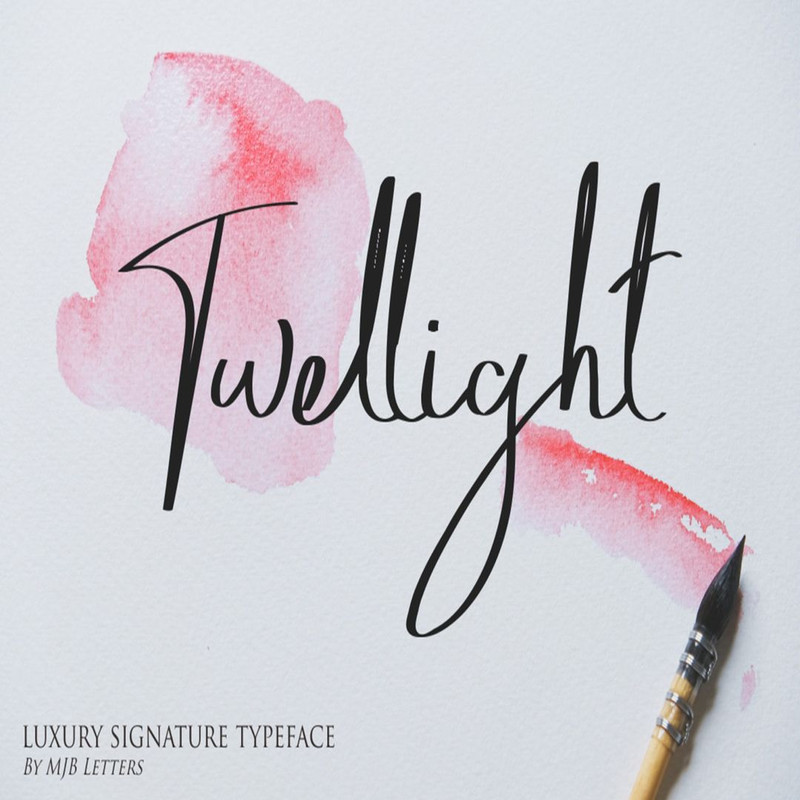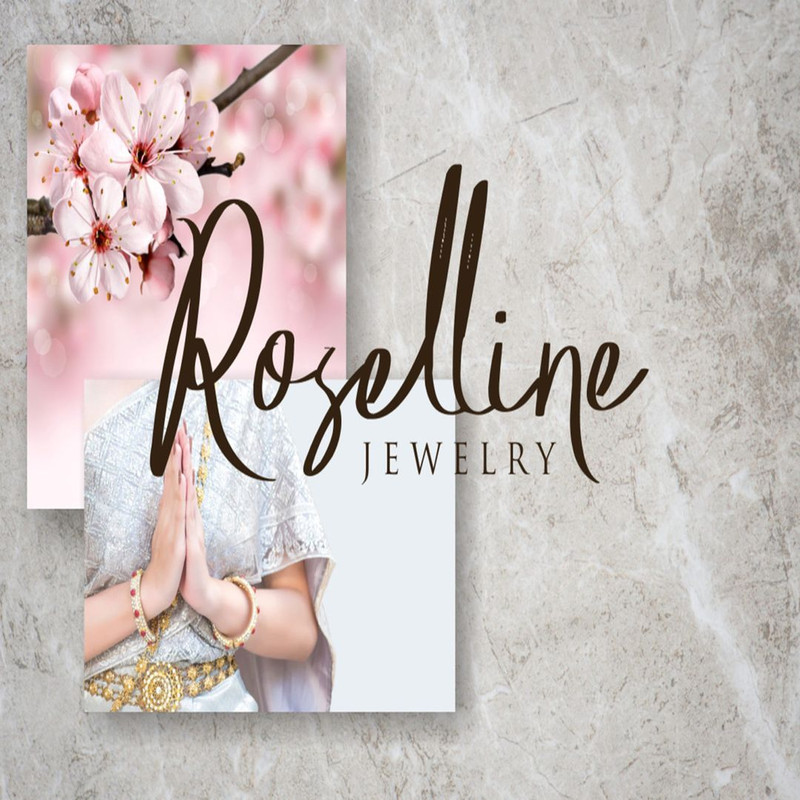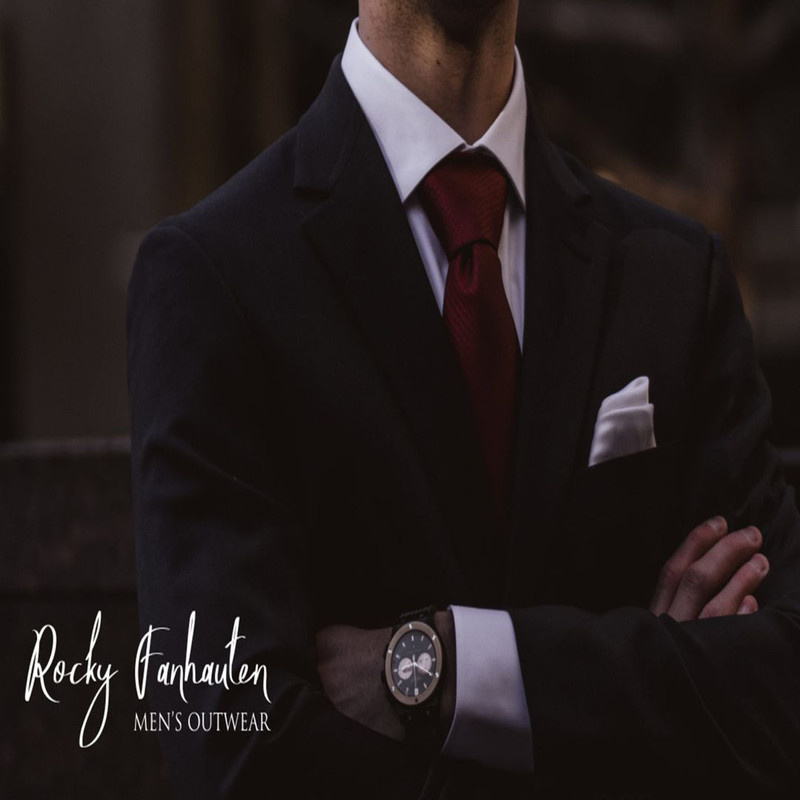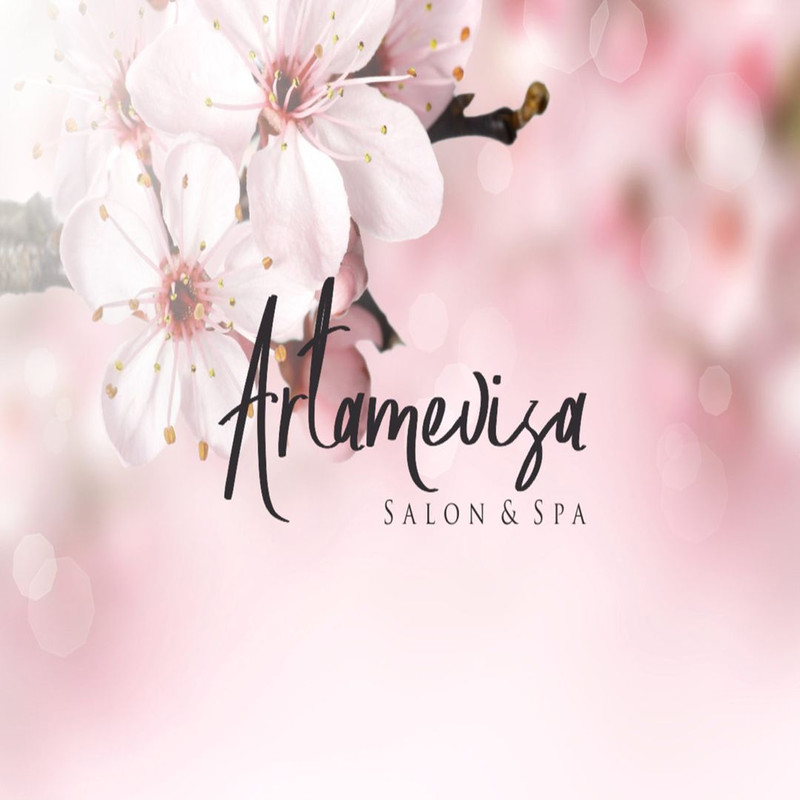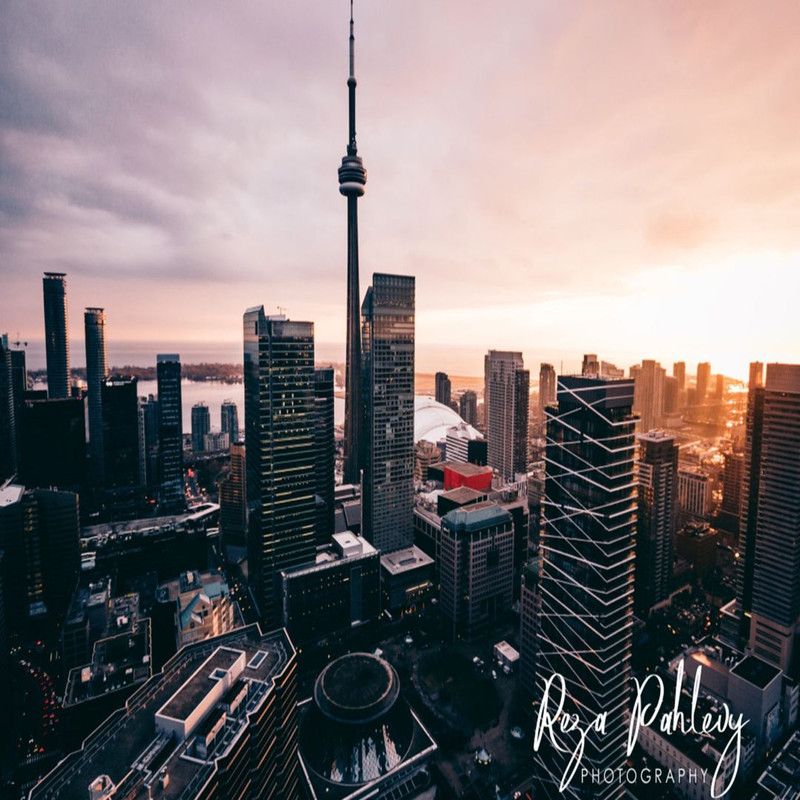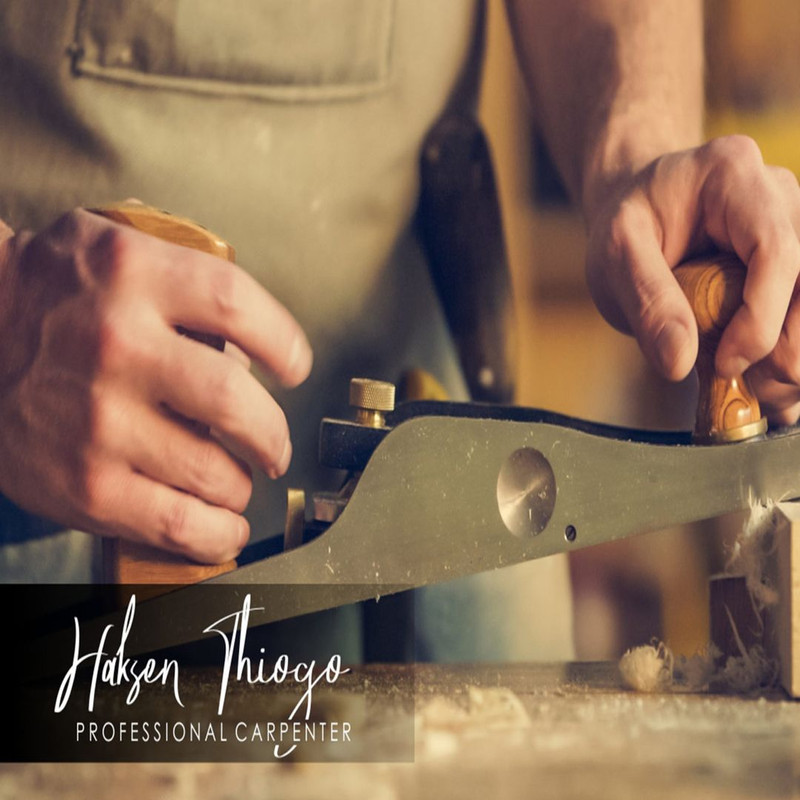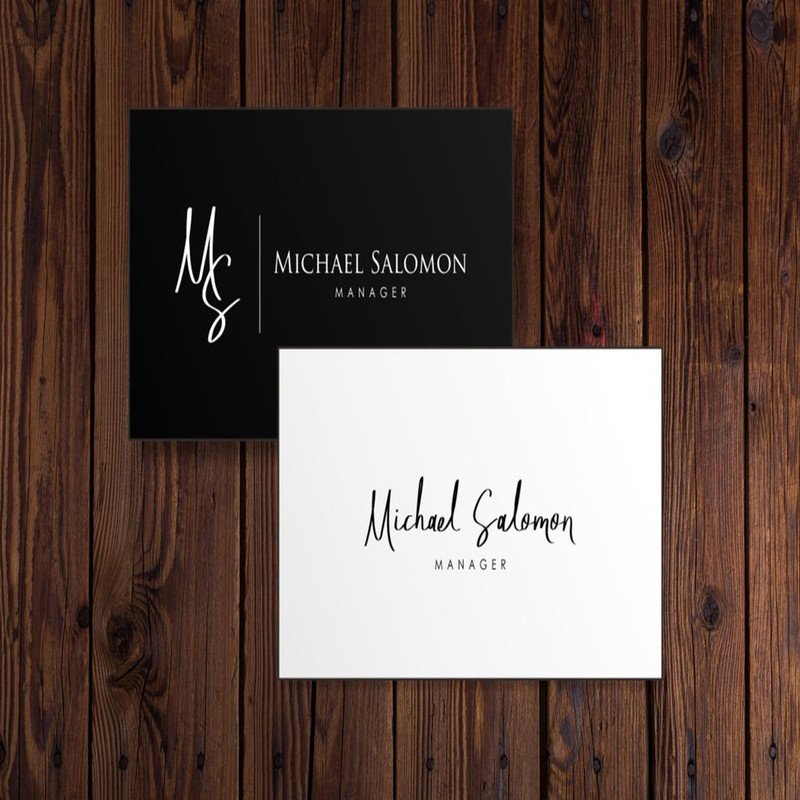
Twellight | Signature Typeface Trending Fonts - Digital Font
The ‘Twellight’ is is a handwritten signature script with a natural & stylish flow. This collection of scripts is perfect for personal branding. this works well for many applications. Everything from personal branding & wedding invitations to advertising could benefit from this signature fonts.
Twellight | Signature Typeface Trending Fonts - Digital Font
The ‘Twellight’ is is a handwritten signature script with a natural & stylish flow. This collection of scripts is perfect for personal branding. this works well for many applications. Everything from personal branding & wedding invitations to advertising could benefit from this signature fonts.